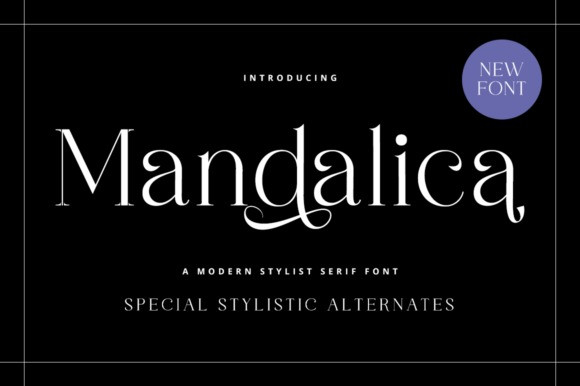
Mandalica Serif Font
Designer: RockboyStudio
Mandalica Serif Font is an elegant, thin-lettered, and distinct serif font. Suitable for a wide variety of designs due to its neat and clean style, it has the potential to become your favorite go-to font, no matter the occasion!